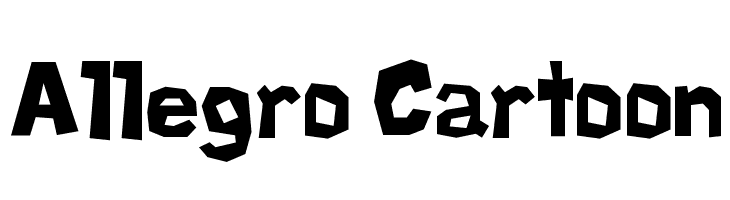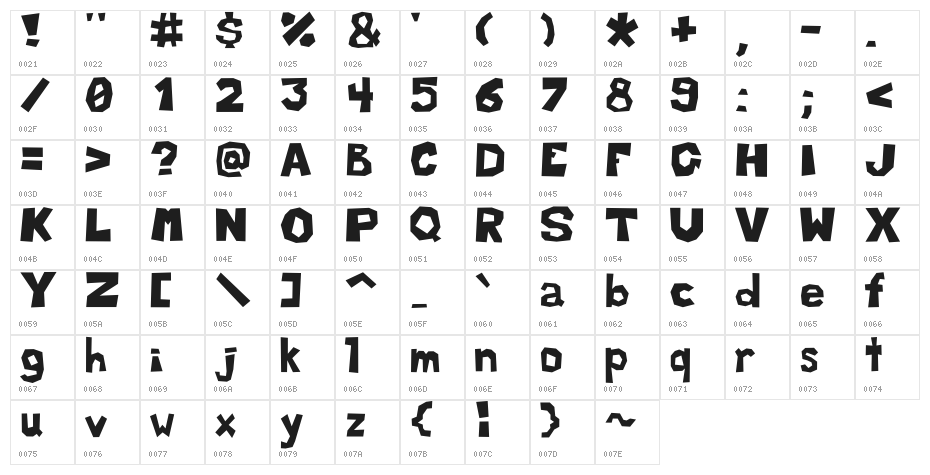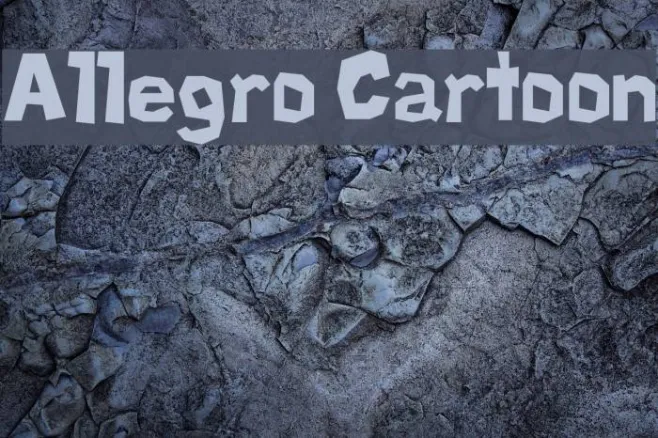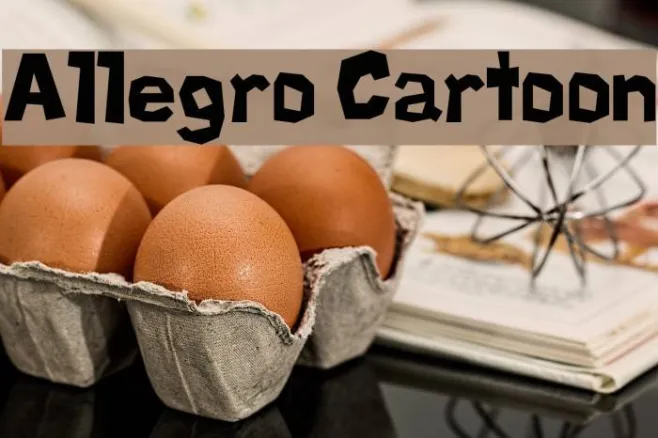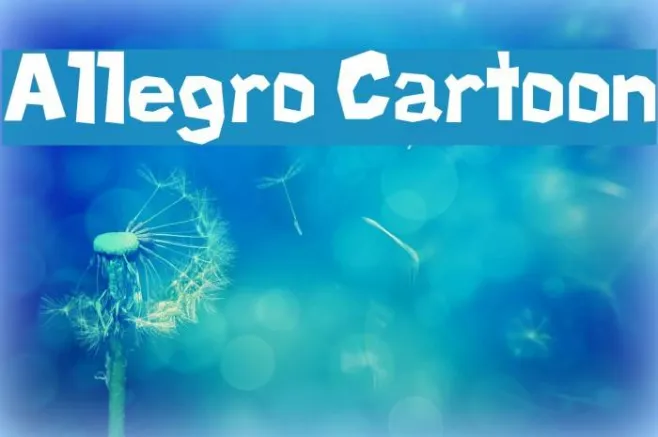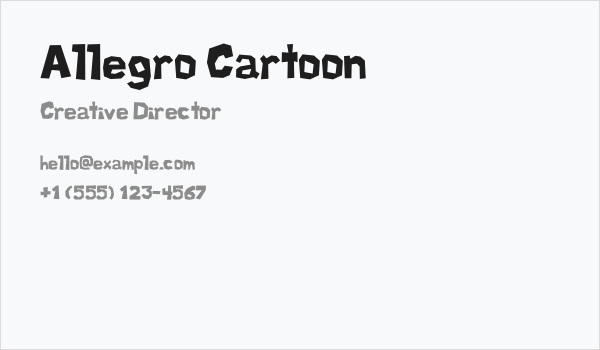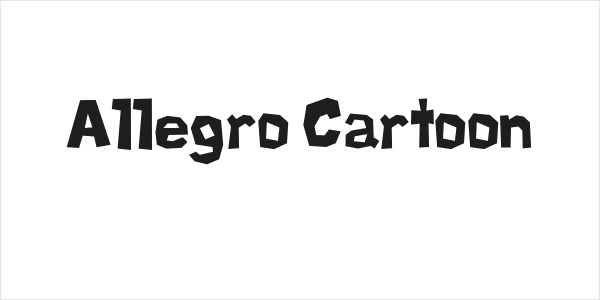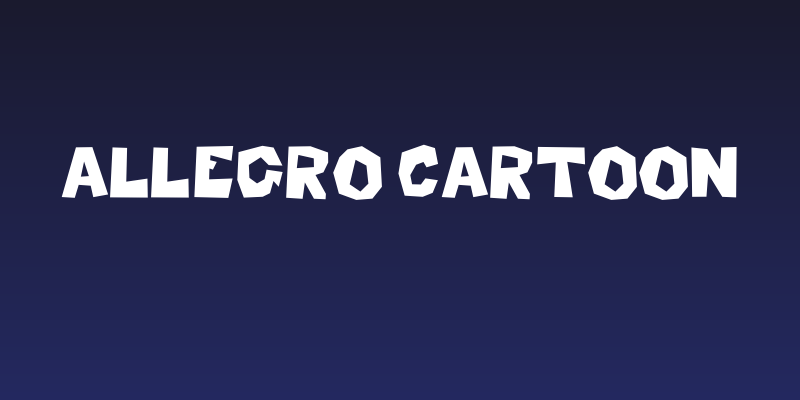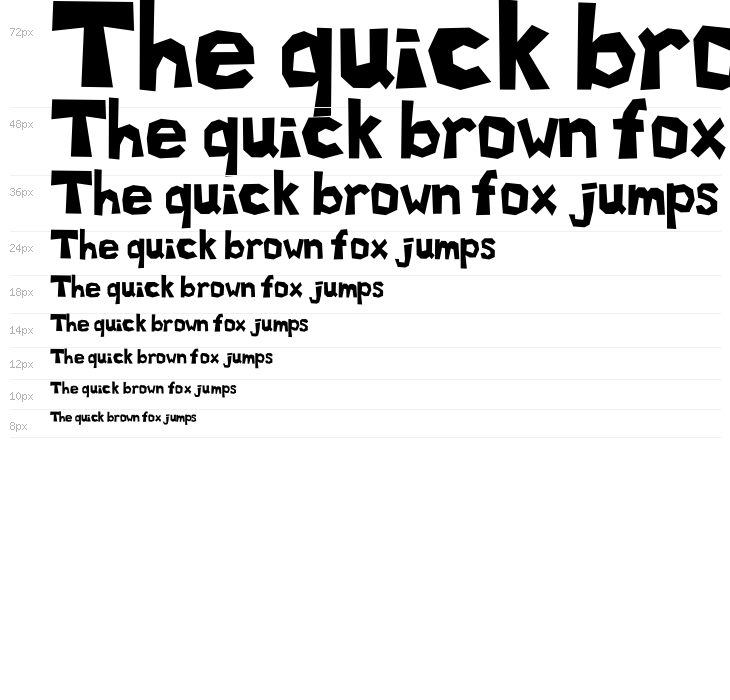
Allegro Cartoon Font
Allegro Cartoon Description
This font exhibits a playful and dynamic style, characterized by its bold and irregular shapes. The letters have a cartoonish, hand-drawn appearance with exaggerated angles and uneven edges, giving it a lively and energetic feel. The uppercase and lowercase letters maintain a consistent style, while the numbers and special characters follow the same whimsical design. This font is ideal for projects that require a fun and informal touch, such as children's books, comic strips, or playful branding materials. Its unique style makes it stand out, capturing attention with its bold presence.
| Overall Style | Cartoonish, Playful, Energetic |
| Proposed Projects | Ideal for children's books, comic strips, playful branding, and informal designs. |